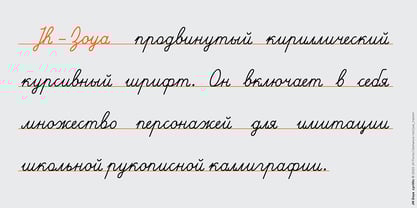
JH Zoya Cyrillic
by JH Fonts
JH Zoya is an advanced Latin and Cyrillic script. It includes over 1500 characters to simulate school handwritten calligraphy.
продвинутый кириллический курсивный шрифт. Он включает в себя множество персонажей для имитации школьной рукописной каллиграфии.
Designers: Joe Hatem
Publisher: JH Fonts
Foundry: JH Fonts